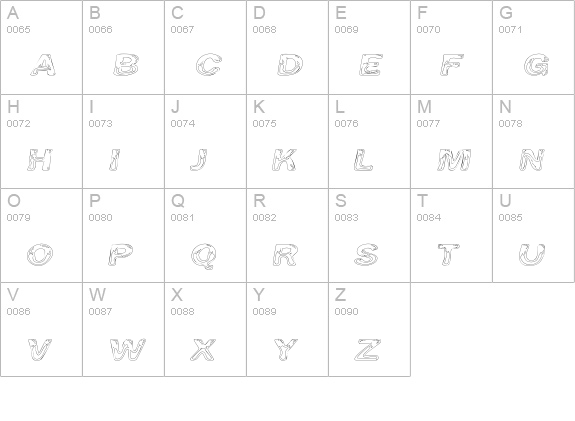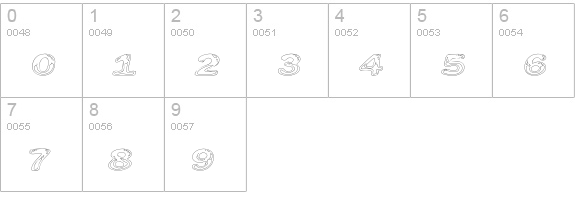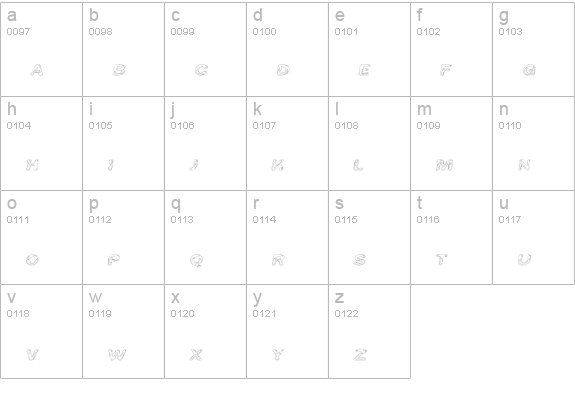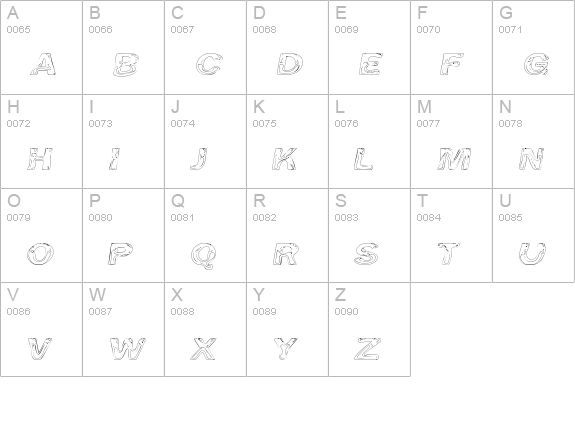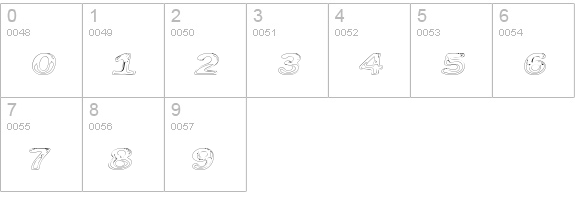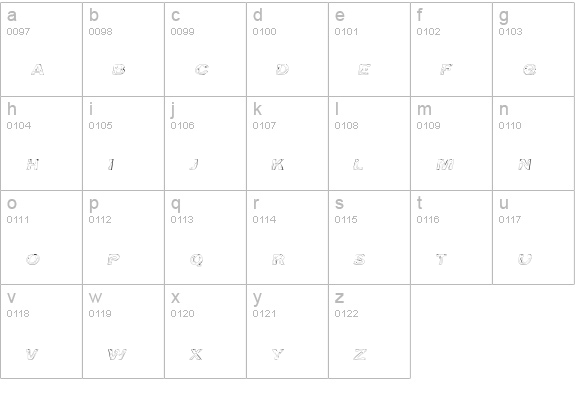
Line Etch Font Details
Line Etch font is a modern and stylish typeface that brings a sleek and sophisticated touch to any design project. With its clean lines and elegant appearance, Line Etch is perfect for creating eye-catching headlines, logos, and branding materials. The font's sharp edges and minimalist design give it a contemporary look that is sure to make your designs stand out. Best of all, Line Etch font is available for free download at FontsMarket.com. This means you can easily incorporate this versatile typeface into your projects without breaking the bank. Whether you're a designer looking to add a touch of elegance to your work or a business owner in need of a striking font for your marketing materials, Line Etch is the perfect choice. Download it today and elevate your designs with this stunning and versatile font.